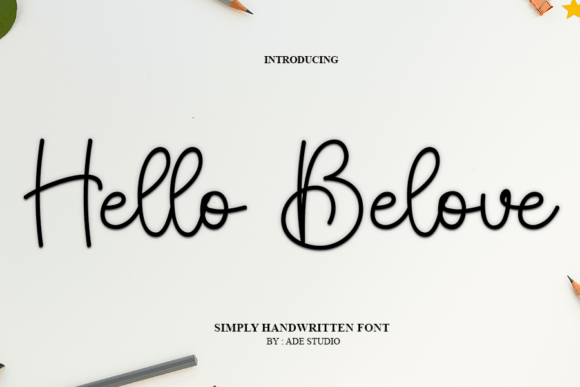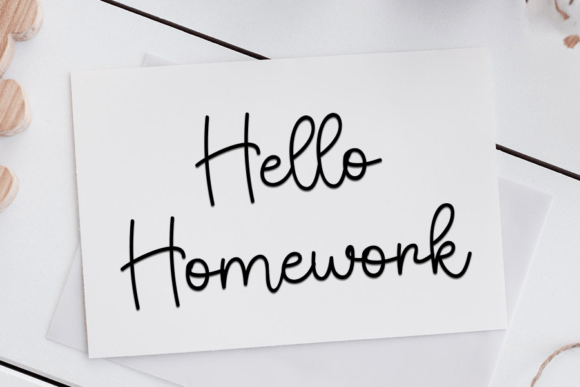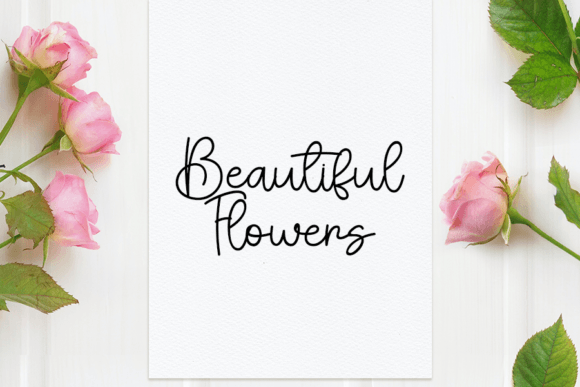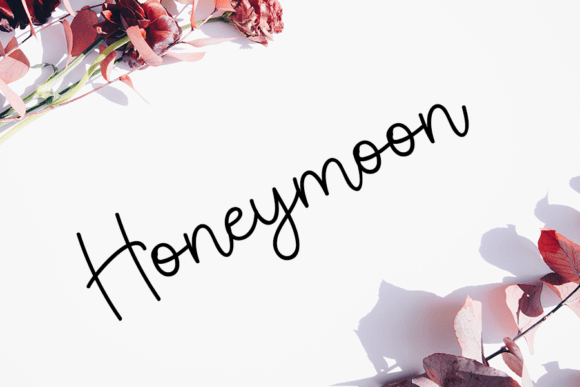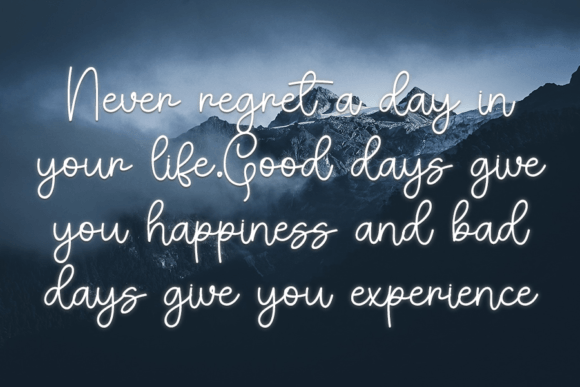
About Hello Belove Font
“Hello Belove” is a tenderly crafted handwritten font designed to infuse your designs with a romantic and distinctive touch. This font offers a unique blend of delicacy and charm, making it a versatile choice for various creative applications, including writing heartfelt letters, creating elegant invitations, enhancing the packaging of gourmet food products, crafting eye-catching titles, and much more.
“Hello Belove” is more than just a font; it’s a design element that encapsulates the essence of romance and individuality. Its carefully crafted characters evoke a sense of intimacy, allowing you to create designs that truly connect with your audience on a personal level.
One of the standout features of “Hello Belove” is its versatility. Whether you’re writing love letters, designing invitations for a dreamy wedding, or labeling artisanal food products, this font seamlessly integrates into a wide range of design contexts, infusing each project with a unique touch of elegance.
The font’s appeal extends seamlessly from traditional print media to the digital landscape. From the pages of a romantic novel to the screens of a beautifully designed website, “Hello Belove” radiates a sense of warmth and intimacy. Its legibility ensures that your message is communicated clearly and effectively, while its inherent delicacy adds an extra layer of visual allure.
What sets “Hello Belove” apart is its ability to evoke a sense of romance and individuality. It’s a font that invites your audience to engage with your designs on a deeply emotional level. With “Hello Belove” as part of your creative toolkit, you can bring your unique ideas to life in a way that tugs at the heartstrings of your audience.
Furthermore, “Hello Belove” offers a wide array of customization options, allowing you to tailor your text to perfectly match your creative vision. This flexibility empowers you to create designs that are as unique as your artistic imagination.
In conclusion, “Hello Belove” is not just a font; it’s a design asset that infuses your creative projects with romance and uniqueness. Embrace its delicate handwritten style, and let it inspire you to craft memorable and heartfelt designs that leave a lasting impression. With “Hello Belove” by your side, your creative possibilities are endless, enabling you to create works of art that are as romantic as they are distinct and individual.